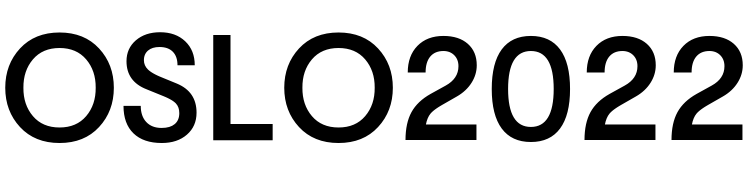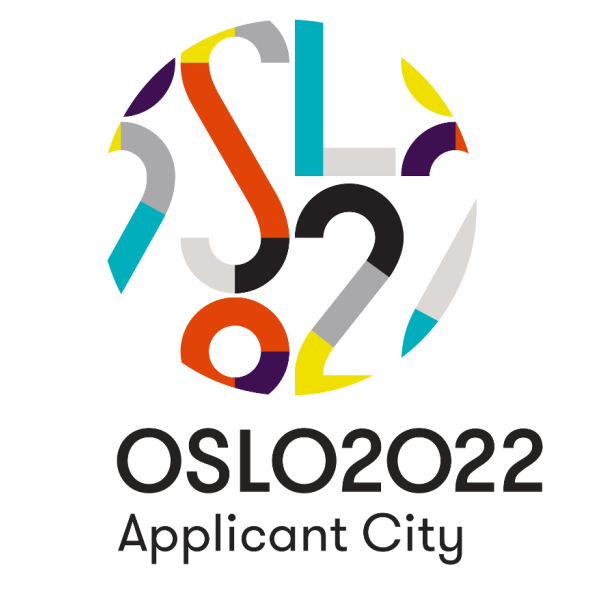
Fonts in UseOslo 2022 was an international event held in Oslo, Norway, featuring various activities and celebrations, showcasing the city's rich culture and promoting global cooperation and engagement.
Oslo, bidding for the 2022 Winter Olympics, unveiled its playful logo by Snøhetta Design, combining "Oslo 2022" in the geometric sans serif font GT Walsheim inspired by Swiss poster designer Otto Baumberger. More details about the font are available here